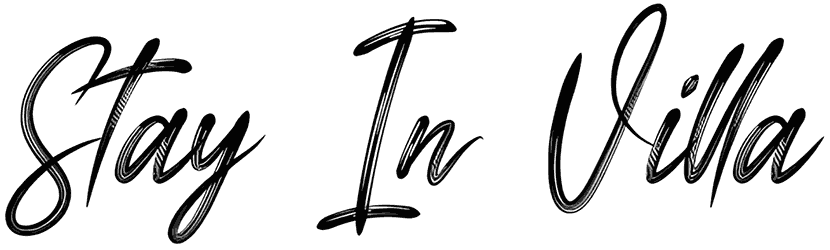
Stay In Villa Font
Stay In Villa’s hand-textured lines capture a moment’s energy and raw emotion, creating images of bold brushstrokes on canvas. This brush font has an organic appearance that brings enough individuality and can convey a sense of originality.
So, for a logo, branding campaign for an art studio or gallery, and t-shirts would be an intelligent choice. So use the power of Stay In Villa to convey the human touch and bring out the most beautiful things from the heart of your ideas.